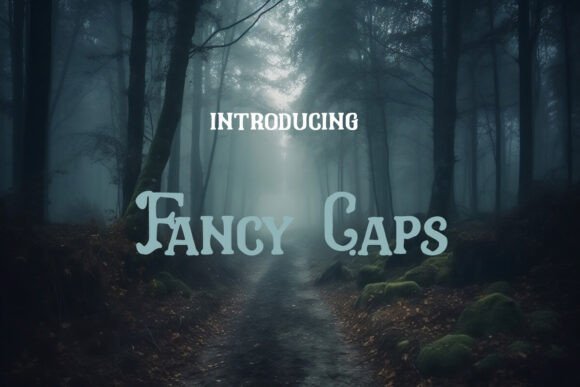
Fancy Caps Font: Elevate Your Designs with a Touch of Elegance
In the world of typography, a well-chosen font can make all the difference in the success of a design project. Whether you’re working on a print design, promotional material, or magazine layout, the right font can elevate your creations and leave a lasting impression on your audience. Introducing Fancy Caps, a Serif Display Font that embodies versatility and charm, making it the perfect typography companion for any design endeavor.
What is Fancy Caps Font?
Fancy Caps is a Serif Display Font designed to bring a touch of elegance and sophistication to your designs. Its unique charm and versatility make it an ideal choice for a wide range of mediums, from print designs to digital platforms. With its distinctive appeal, Fancy Caps can add a new level of depth and character to your creations, setting them apart from the ordinary.
Design Applications of Fancy Caps Font
Fancy Caps is a highly versatile font that can be used in various design applications, including:
- Print Design: Fancy Caps is perfect for print designs, such as brochures, posters, and business cards. Its elegant and sophisticated look can add a touch of luxury to your designs, making them stand out from the crowd.
- Promotional Materials: Whether you’re creating promotional materials, such as flyers, banners, or social media graphics, Fancy Caps can help you create eye-catching and persuasive designs that grab the attention of your audience.
- Magazine Layouts: Fancy Caps is also suitable for magazine layouts, where its distinctive charm can add a new level of character to your storytelling. Use it for headlines, subheadings, or even body text to create a visually appealing and engaging reading experience.
The Benefits of Using Fancy Caps Font
Fancy Caps offers a range of benefits that make it an attractive choice for designers, including:
- Versatility: Fancy Caps is a highly versatile font that can be used in various design applications, from print designs to digital platforms.
- Elegance: Its elegant and sophisticated look can add a touch of luxury to your designs, making them stand out from the crowd.
- Distinctive Appeal: Fancy Caps has a unique charm that can add a new level of character to your creations, setting them apart from the ordinary.
- Easy to Read: Despite its elegant look, Fancy Caps is easy to read, making it suitable for body text and other long-form content.
Tips for Using Fancy Caps Font
To get the most out of Fancy Caps, here are some tips to keep in mind:
- Use it for Headlines: Fancy Caps is perfect for headlines, where its elegant and sophisticated look can make a big impact.
- Experiment with Font Sizes: Don’t be afraid to experiment with different font sizes to create visual interest and hierarchy in your designs.
- Pair it with Other Fonts: Fancy Caps can be paired with other fonts to create a unique and visually appealing typography combination.
- Use it for Branding: Fancy Caps can be used for branding purposes, such as creating a logo or typography system for a brand.
In conclusion, Fancy Caps is a Serif Display Font that offers a unique combination of elegance, sophistication, and versatility. Its distinctive appeal and charm make it an ideal choice for a wide range of design applications, from print designs to digital platforms. Whether you’re a designer, typographer, or simply someone looking to elevate your designs, Fancy Caps is a font that is sure to impress.